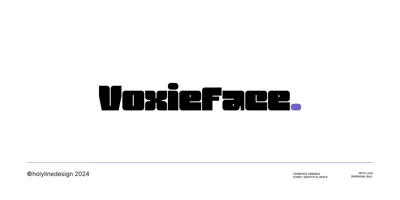
Voxieface Font is perfect for tech startups, gaming interfaces, digital media brands, voice technology companies, podcasting platforms, AI software logos, and futuristic app designs. This innovative typeface embodies the cutting-edge spirit of voice technology and digital communication, bringing modern technological sophistication to any contemporary design project.
What makes Voxieface Font exciting is its revolutionary fusion of voice-inspired design elements with sleek digital aesthetics that captures the essence of modern communication technology. The font features dynamic letterforms with audio wave-like curves and digital precision that evoke both human speech patterns and technological innovation. Its forward-thinking character creates instant recognition in tech-savvy audiences while maintaining exceptional readability across all digital platforms.
The Voxieface Font family includes multiple weights from light to bold, complete with condensed variations and tech-inspired ornamental elements. The character set features digital ligatures, voice symbols, wave-pattern alternates, and communication-themed decorative elements that enhance the font's technological appeal. Advanced OpenType features provide flexibility for international tech companies and multilingual digital communication platforms.
Whether you're developing voice technology brands, creating digital communication interfaces, or designing futuristic marketing materials, Voxieface Font delivers exceptional innovation and versatility. This groundbreaking typeface transforms ordinary text into compelling technological experiences that resonate with digital natives while establishing memorable brand recognition in competitive technology and communication marketplaces.